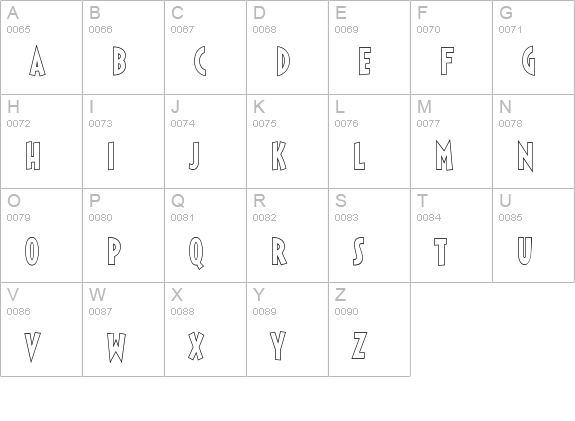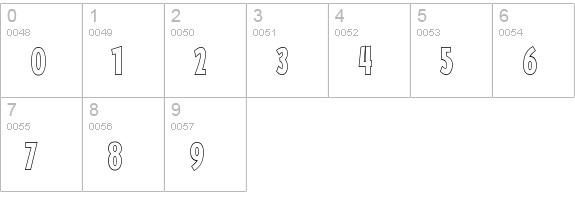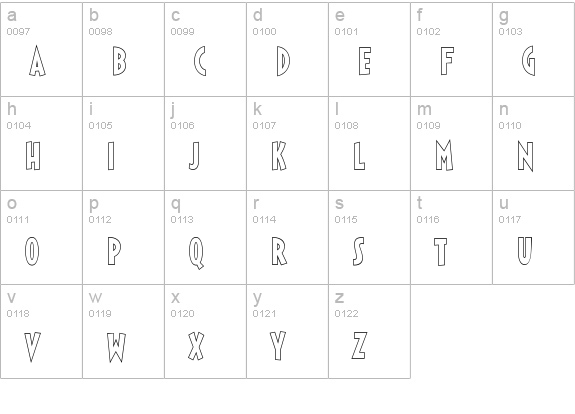
Sticky Moula BTN Outline Font Details
Sticky Moula BTN Outline font is a striking and modern typeface that exudes a sense of creativity and uniqueness. Its bold outline design makes it perfect for eye-catching headlines, logos, and other design projects that require a touch of sophistication. This font is sure to make your work stand out and leave a lasting impression on viewers. What's even better is that Sticky Moula BTN Outline font is completely free to download at FontsMarket.com. This means you can easily add this stylish font to your collection without having to spend a single penny. Don't miss out on the opportunity to enhance your designs with this versatile and captivating typeface – download Sticky Moula BTN Outline font today and take your projects to the next level!